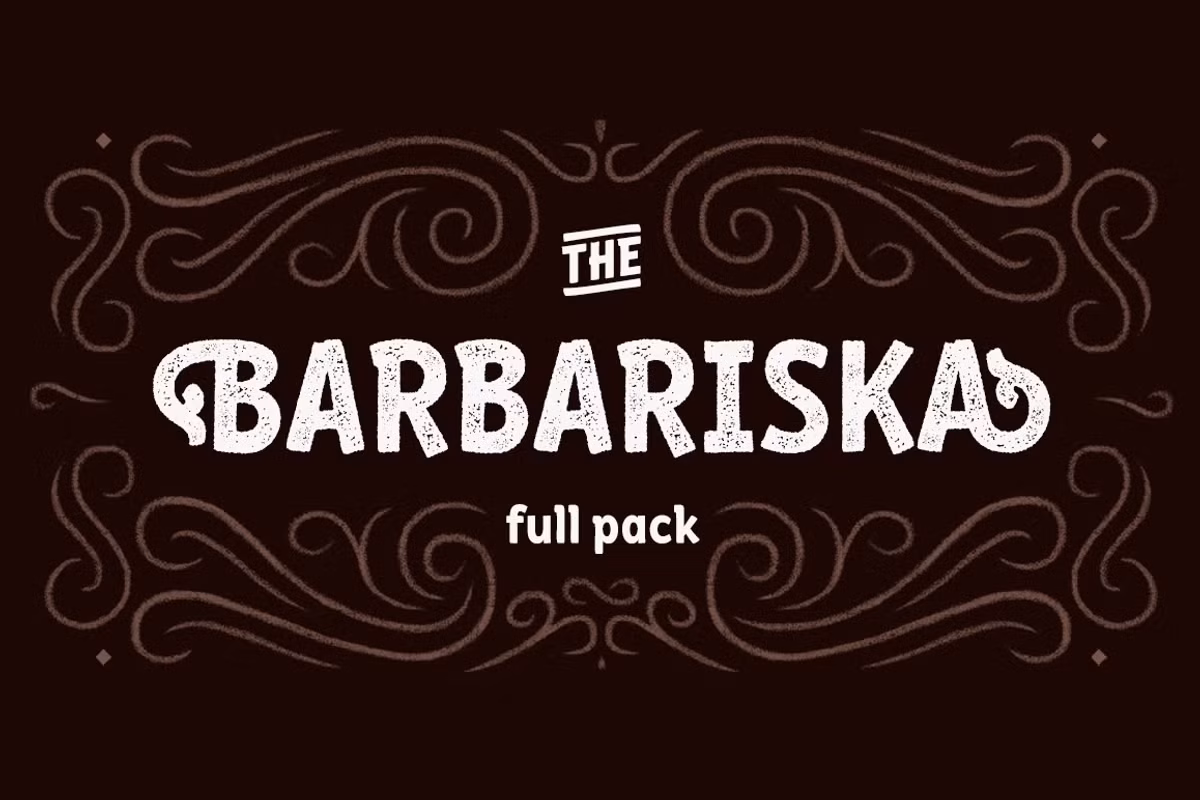
Barbariska — Full Pack Free Download is a bold and expressive font collection designed to make a dramatic visual impact. Featuring a complete set of characters, stylistic alternates, and creative extras, Barbariska is perfect for posters, branding, album covers, editorial design, and streetwear-inspired projects.
With its edgy, hand-crafted aesthetic and artistic vibe, this full pack offers flexibility and personality in every design. Whether you're creating a rebellious headline, a powerful logo, or a gritty social media graphic, Barbariska delivers attitude and authenticity.